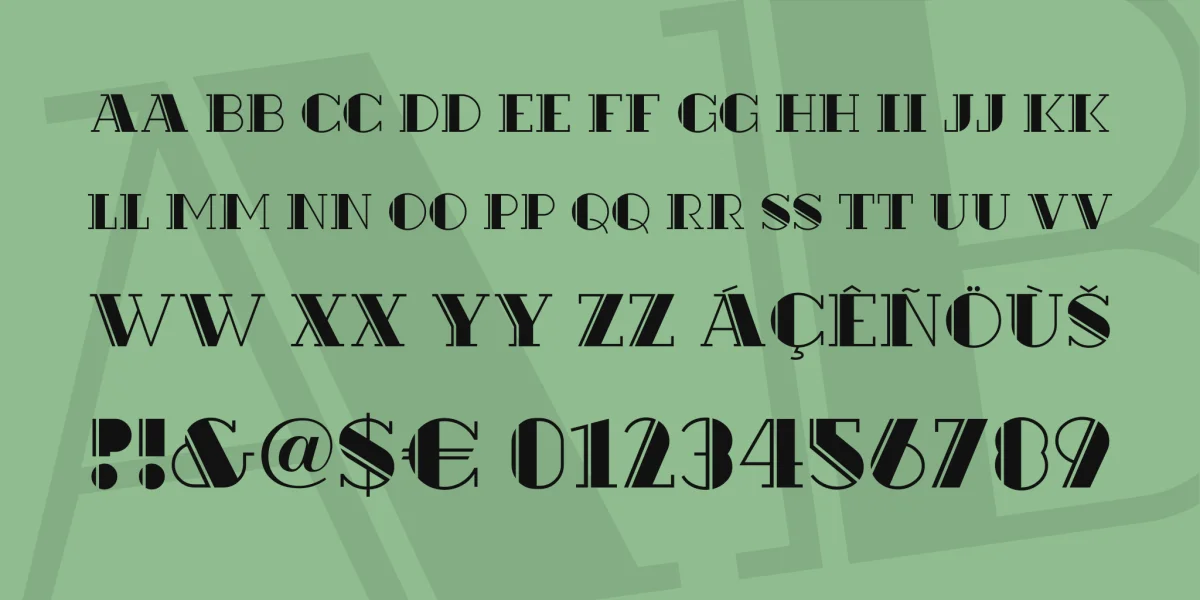
Reminescent of a movie house marquee of the 30’s, this font builds on the basic letterforms of old hoss Dextor Blade, but adds a few tasty twists — more contrast between thick and thin strokes, and a nifty little inline. So, grab a tub of popcorn, a box of Root Beer Barrels and a soda — the show’s about to begin!